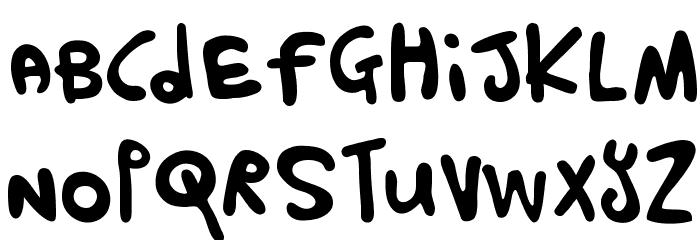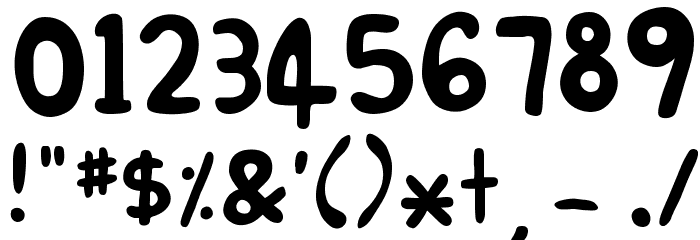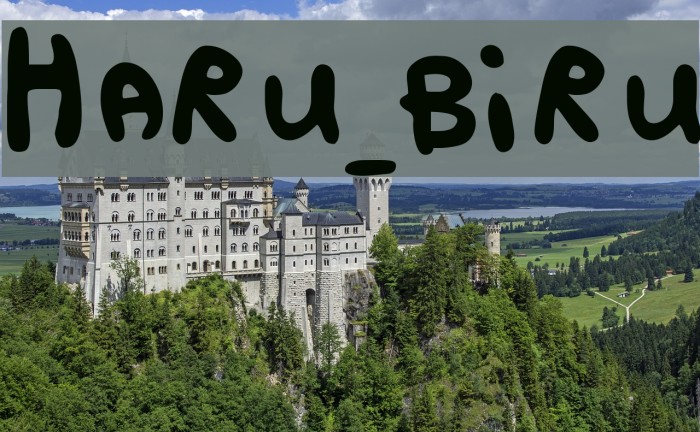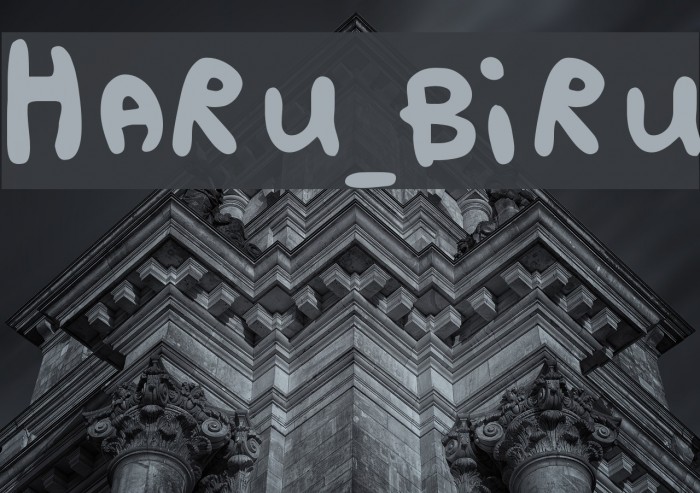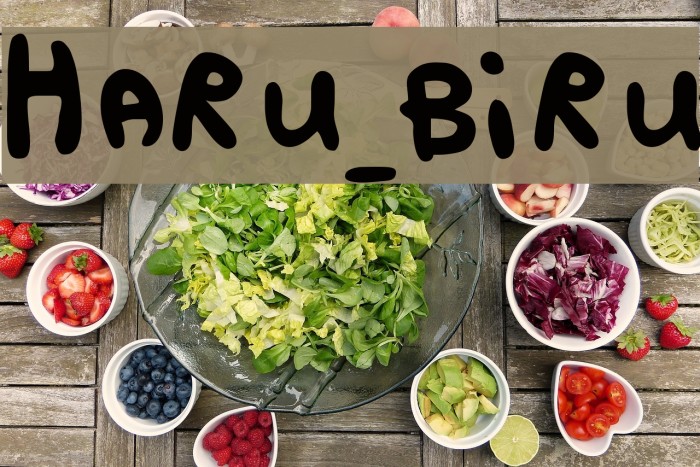
HARU_BIRU Font
This playful and bold font features a hand-drawn aesthetic with rounded edges and a slightly irregular baseline, giving it a whimsical and informal appearance. The characters are thick and substantial, providing excellent readability while maintaining a casual and friendly tone. The uppercase and lowercase letters are distinct, with a consistent stroke width throughout. The numbers and special characters complement the overall style, making it versatile for various creative applications. Its unique charm makes it suitable for projects that require a touch of personality and fun.
A playful, bold, hand-drawn font with rounded edges and a whimsical style.
- Proposed Projects: Ideal for children's books, comic strips, playful branding, greeting cards, and social media graphics.